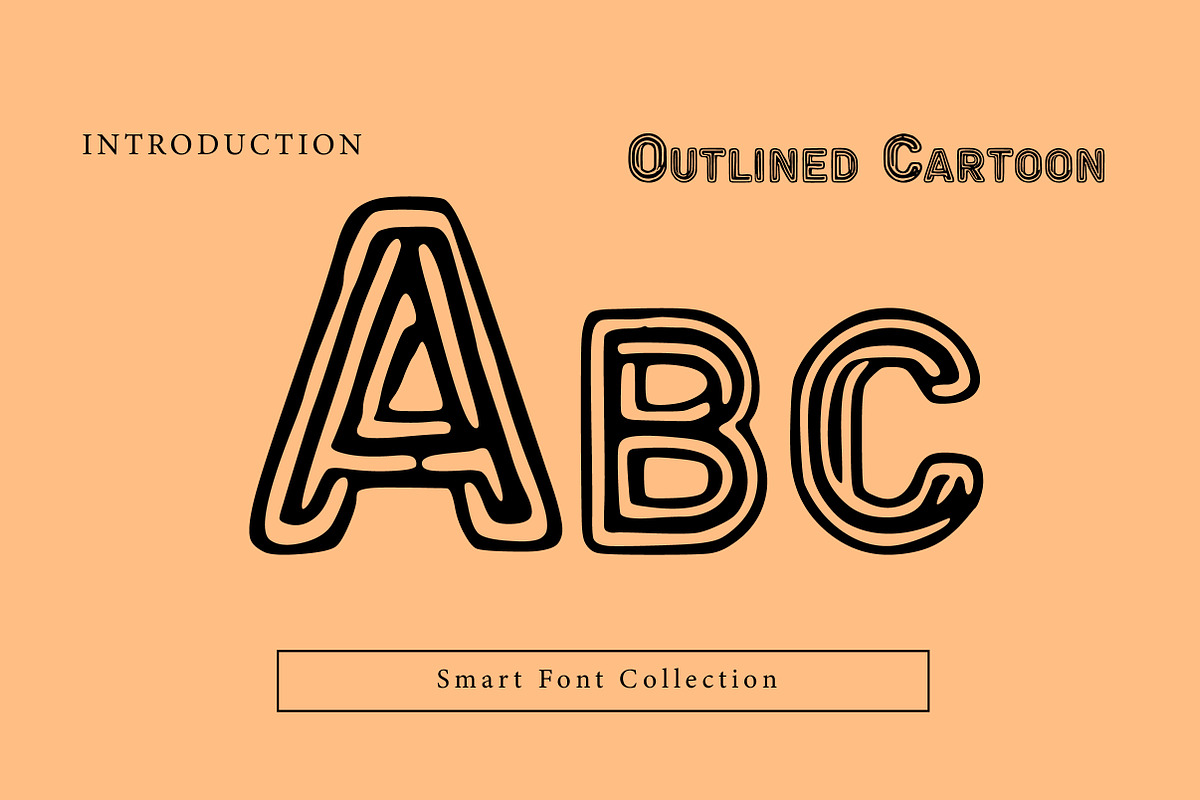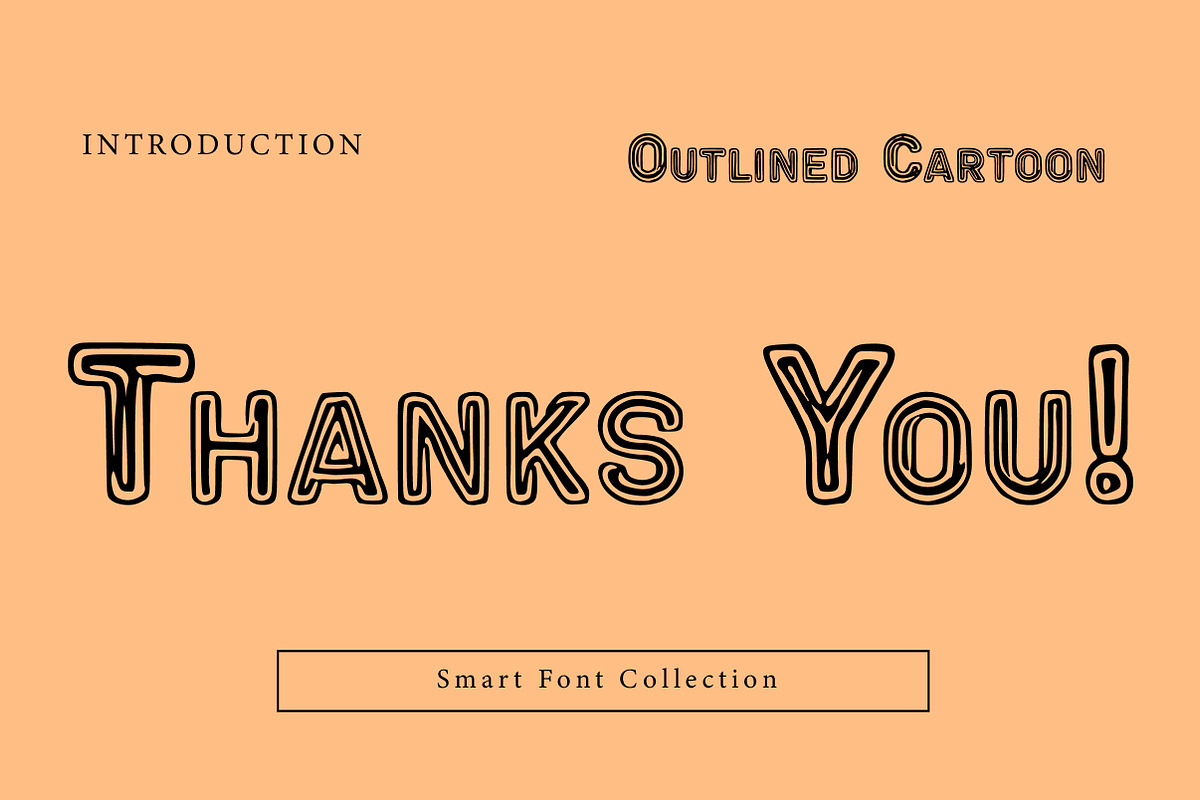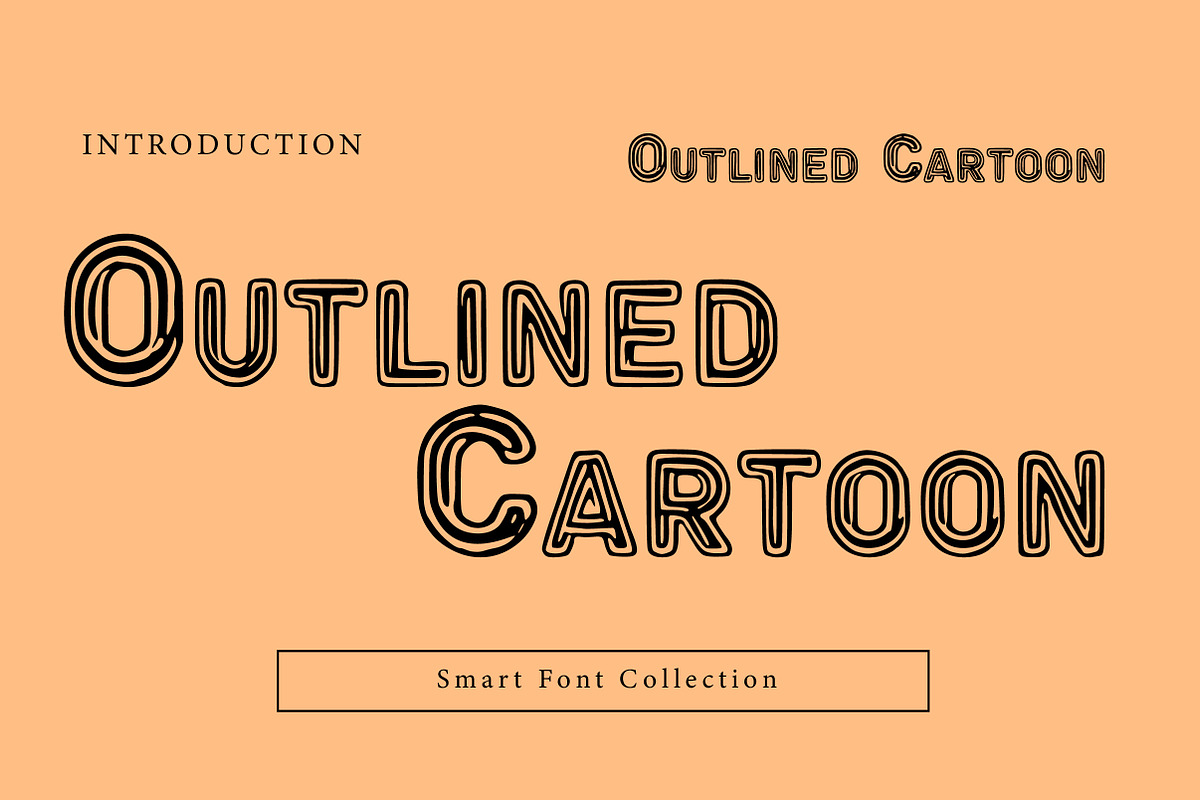
Outlined Cartoon
Outlined Cartoon is a fun, eye-catching display font featuring bold cartoon shapes with a playful outlined style. Its layered line structure and rounded forms give it a lively, animated feel that works perfectly for kids designs, comics, stickers, posters, logos, packaging, educational materials, and cheerful branding. Outlined Cartoon adds personality and motion to your typography—ideal for designs that need to feel joyful, creative, and full of character.